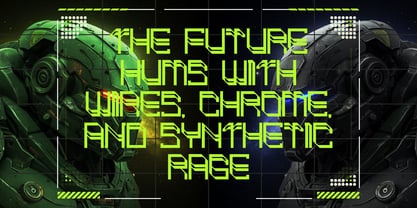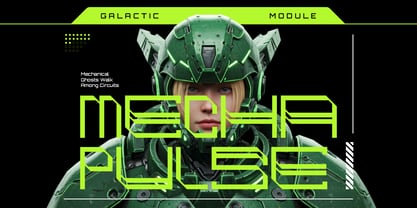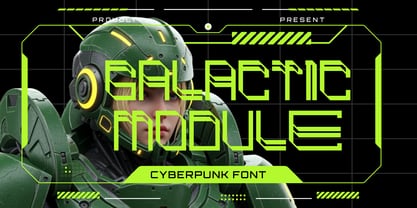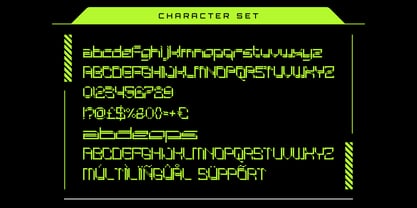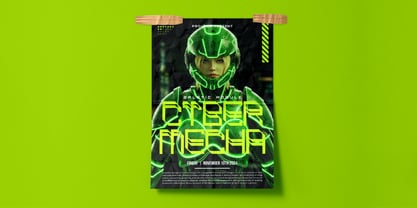
Galactic Module
by Shanaf
The Galactic Module Font Family was designed by Yesie Erma Yunita and published by Shanaf. Galactic Module contains 1 styles.
Step into the digital frontier with Galactic Module – Cyberpunk Futuristic Font, a high-tech typeface engineered for the bold and the visionary. This font brings a sharp, angular construction that mirrors the circuit-board precision and mechanical soul of the cyberpunk and mecha universe. With a dynamic blend of geometric cuts and sleek neon strokes, each character is optimized to evoke a sense of movement and digital fluidity. Its vibrant green aesthetic paired with high-contrast layouts and UI-inspired elements makes it ideal for projects that aim to feel both cutting-edge and electrifying. Whether showcased on sci-fi posters, tech-based branding, or futuristic interfaces, Galactic Module commands attention in any environment where innovation meets imagination.
Galactic Module includes a full set of uppercase and lowercase characters, multilingual support, numbers, and a suite of futuristic symbols that expand your creative arsenal. The font’s condensed width and modular construction allow for a compact yet legible presentation in both print and digital media. It's perfectly suited for titles in games, dystopian films, tech advertisements, esports branding, and beyond. If you're crafting a story about synthetic futures, AI rebellion, or intergalactic warfare, this typeface delivers a visual language as advanced as the stories you want to tell. Make your designs pulse with the energy of tomorrow.
Designers: Yesie Erma Yunita
Publisher: Shanaf
Foundry: Shanaf
Design Owner: Shanaf